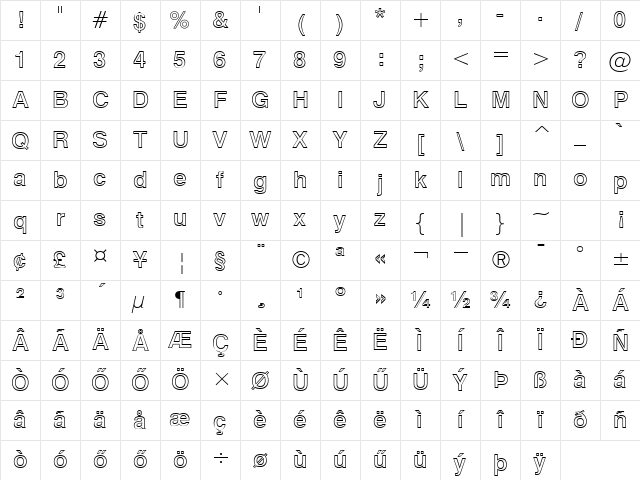
Complete H_Swiss 721 Bold Outline BT Regular glyph index. Displaying only characters natively supported by H_Swiss 721 Bold Outline BT Regular font.
H_Swiss 721 Bold Outline BT is built around its visual character rather than neutral utility - its distinctive forms are designed to make an impression at display sizes. Its bold stroke weight gives it real presence on the page.
Font Pairing: Pair with a clean neutral sans-serif for body copy to let H_Swiss 721 Bold Outline BT's character lead without overwhelming the composition.
Pro Tip: Use H_Swiss 721 Bold Outline BT exclusively at display sizes - it was designed to be seen, not read at length. Let a neutral companion handle body copy.